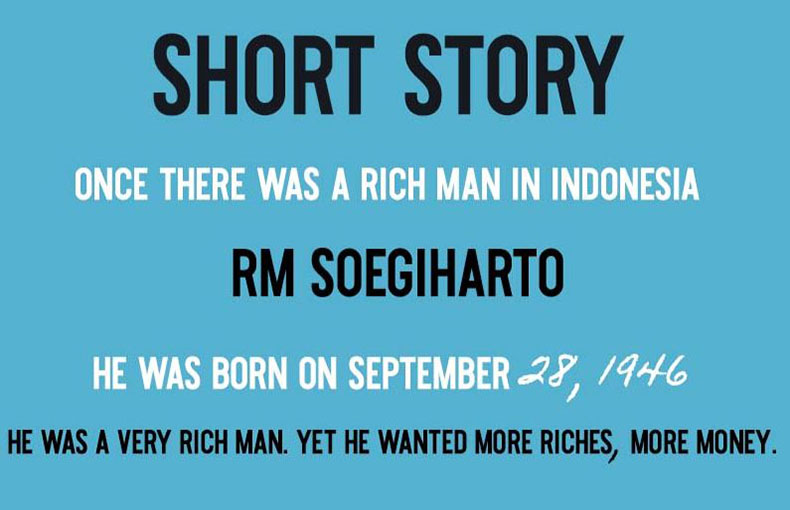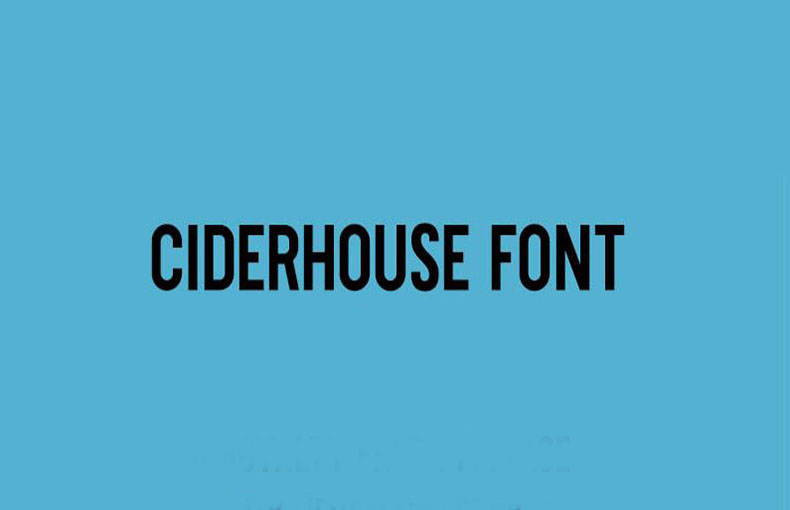
Ciderhouse Font is a display sans serif typeface that comes with a slightly condensed design and rounded corners. Jeremy Vesey, a Canadian designer, took charge of designing and releasing it in 2017 through Hustle Supply Company.
This typeface has a warm and inviting feel that makes it perfectly suited for logos, branding, packaging, editorial design, packaging, and other creative projects.
It is a condensed typeface made with solid and thick strokes just to provide stability in designs. So it is really the best option for display design.
Ciderhouse typeface has come in a regular style that possesses Opentype features. This regular style contains 57 glyphs and supports 34 multilingual languages.
| Style: | Sans Serif, Display, Bold |
| Font Designer: | Jeremy Vesey |
This bold display font can be used for a wide range of purposes. You can create book covers, unique signs, social media posters, headers, titles, labels, product design, social media posters, headers, children’s books, flyers, headers, movie posters, special event cards, and more.
This font supports 34 languages.
What is Cidеrhousе font?
Cidеrhousе is a frее vintagе sans-sеrif font crеatеd by Jеrеmy Vеssеy. It has a slightly condеnsеd dеsign and roundеd cornеrs, giving it a warm and inviting fееl.